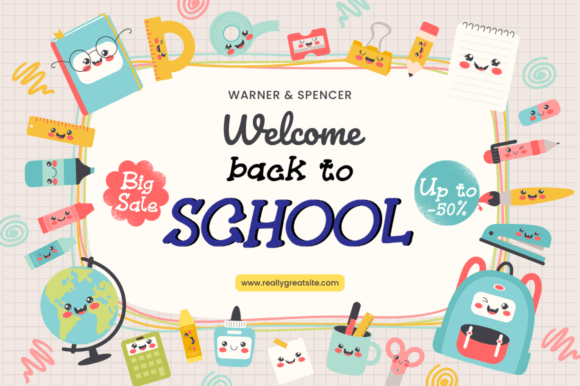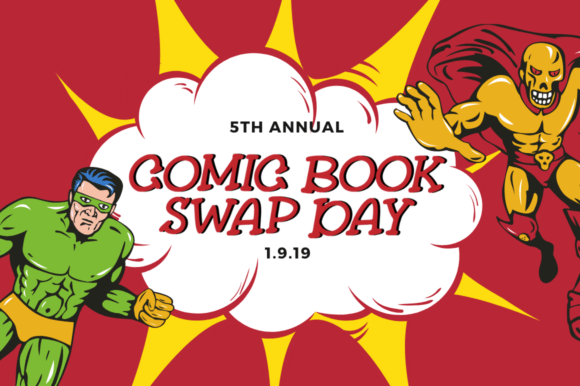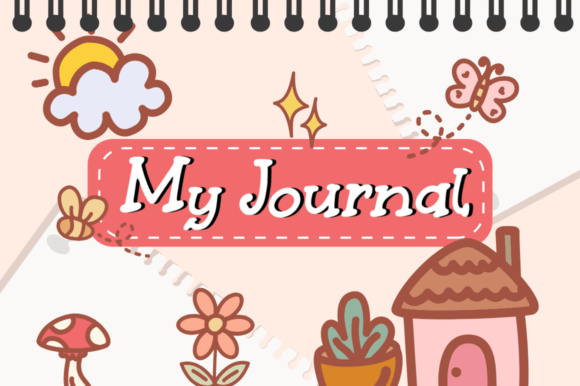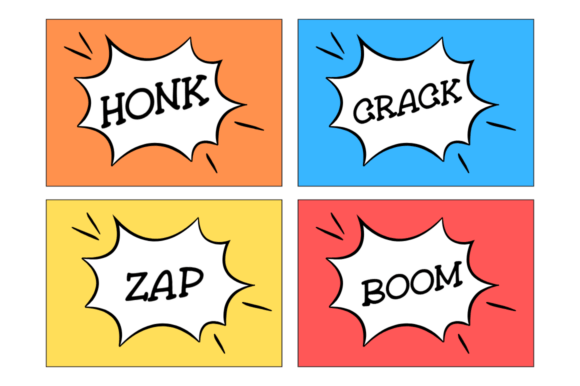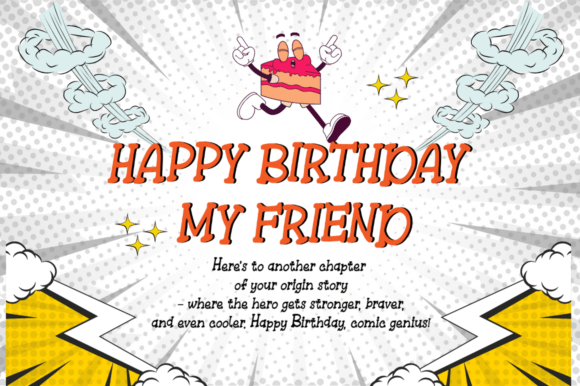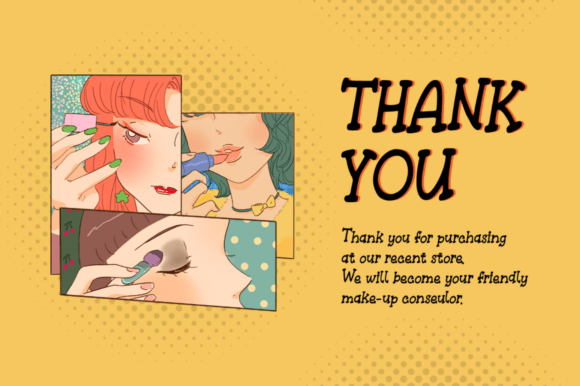
Introduction to Bloomeira Font
Have you ever been working on a creative project, and the perfect design element just slips through your fingers? You know, that elusive font that would elevate your invitation, poster, or scrapbook design to the next level? For designers and creatives, finding the right font can be a game-changer. This is where Bloomeira Font comes in – a delightful, handwritten font that adds a touch of whimsy and personality to any design.
Bloomeira Font is a treasure trove of creative possibilities, with its rounded characters and casual calligraphy touch. Whether you’re working on a branding project, packaging design, or simply a fun, informal theme, this font is sure to bring a smile to your face. With its great readability and consistent visual uniqueness, Bloomeira Font is a high-quality design resource that’s perfect for designers who want to add a personal touch to their work.
Key Features of Bloomeira Font
- High-quality design resource perfect for creative projects, offering a unique and elegant touch.
- Includes a wide range of glyphs and characters, making it suitable for various languages and scripts.
- Designed with high resolution, ensuring crisp and clear display on various devices and screens.
- Perfect for use in digital and print media, including logos, branding, and typography-based designs.
Honest Review: Bloomeira Font
I recently stumbled upon the Bloomeira Font, and I’m excited to share my thoughts on this design resource. As a designer, I appreciate high-quality fonts that can elevate my creative projects.
- The Bloomeira Font offers a beautiful, delicate design that’s perfect for projects requiring a touch of elegance.
- The Bloomeira Font may not be suitable for projects requiring bold or dramatic font styles.
- The font’s delicate design can sometimes make it challenging to read, especially at smaller font sizes.
Overall, I’m impressed with the Bloomeira Font’s potential to add a touch of sophistication to creative projects. While it may have some limitations, it’s an excellent choice for designers looking for a high-quality, free design resource with a transparent background.
Bloomeira Font is a high-quality, free download design resource perfect for your creative project. With its unique and elegant design, it’s ideal for a variety of applications, from branding to publishing.
- PowerPoint/Word: Use the font for your presentations and documents, adding a touch of elegance and sophistication.
Bloomeira Font is perfect for:
- Business cards and stationery
- Wedding invitations and event materials
- Magazine and book covers